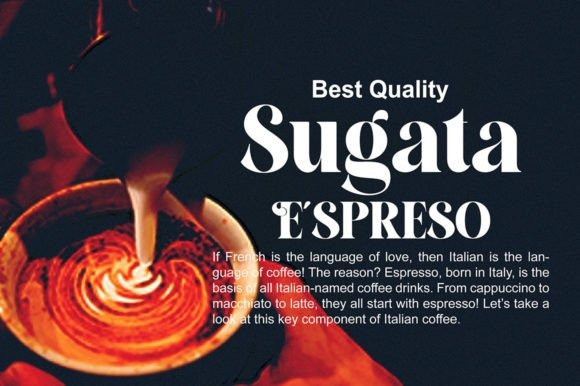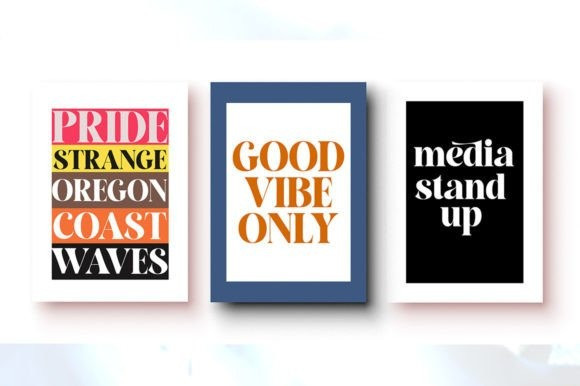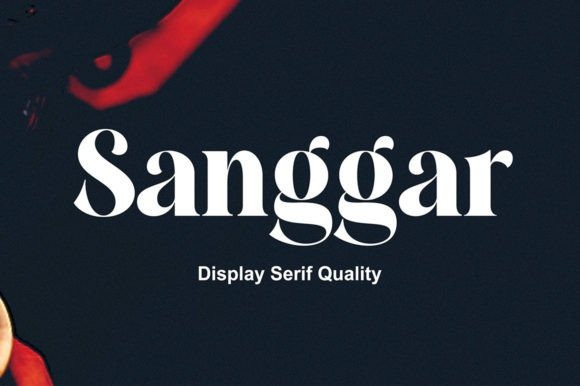
Sanggar Font
Sanggar Serif Font is a modern and bold serif font that will take your creations to the highest levels! It is perfect for branding, advertising, business cards, book covers, magazines, and so much more.